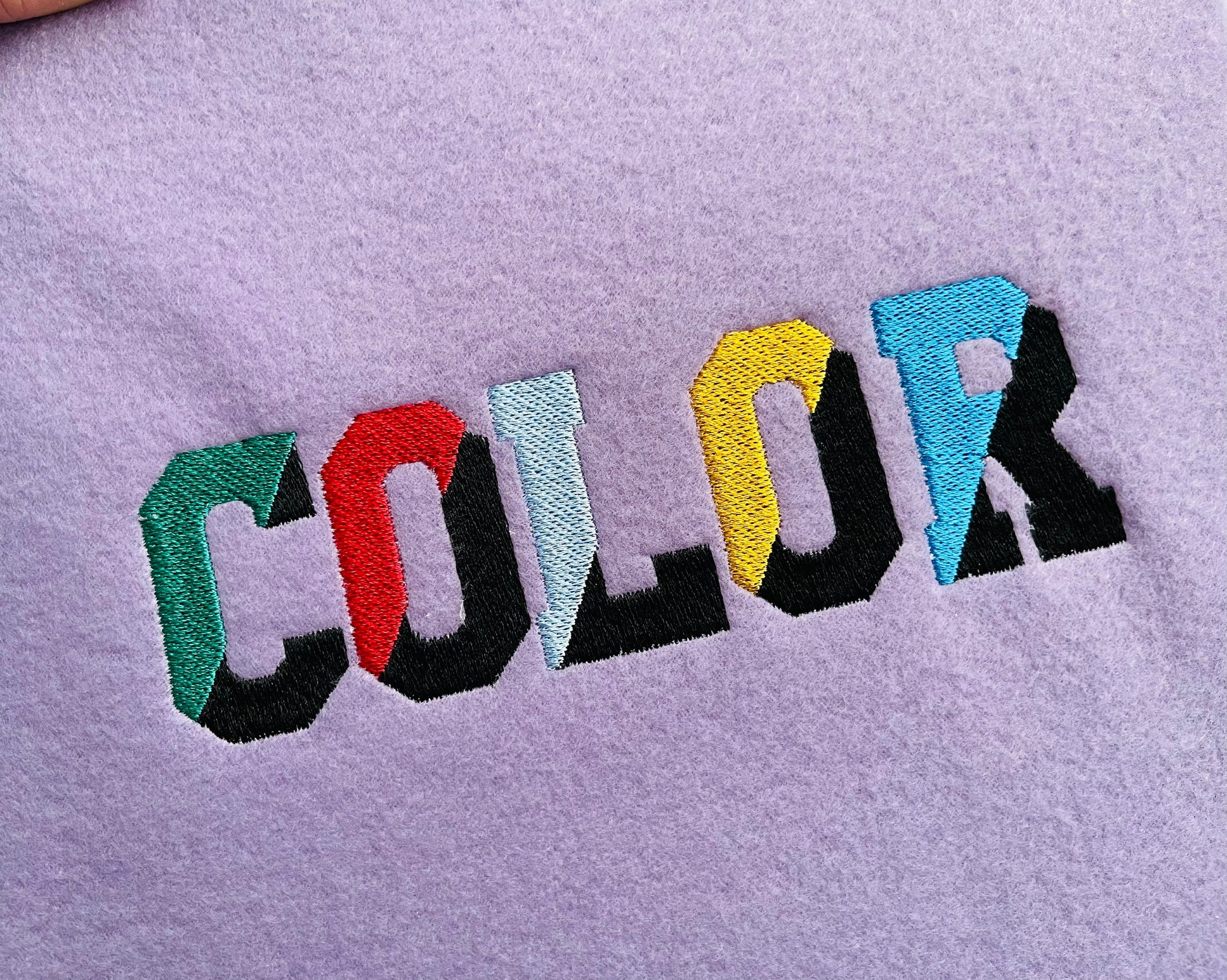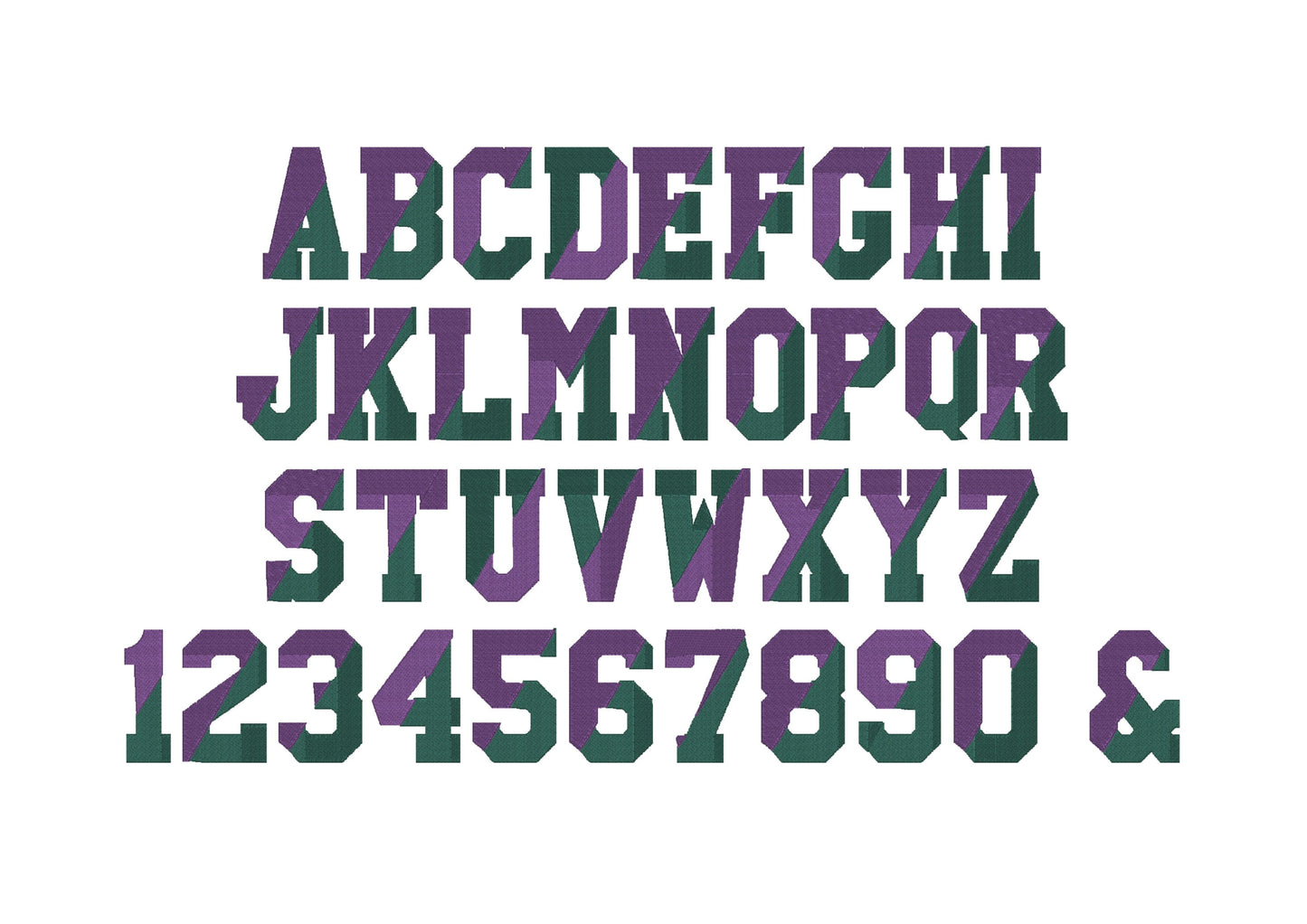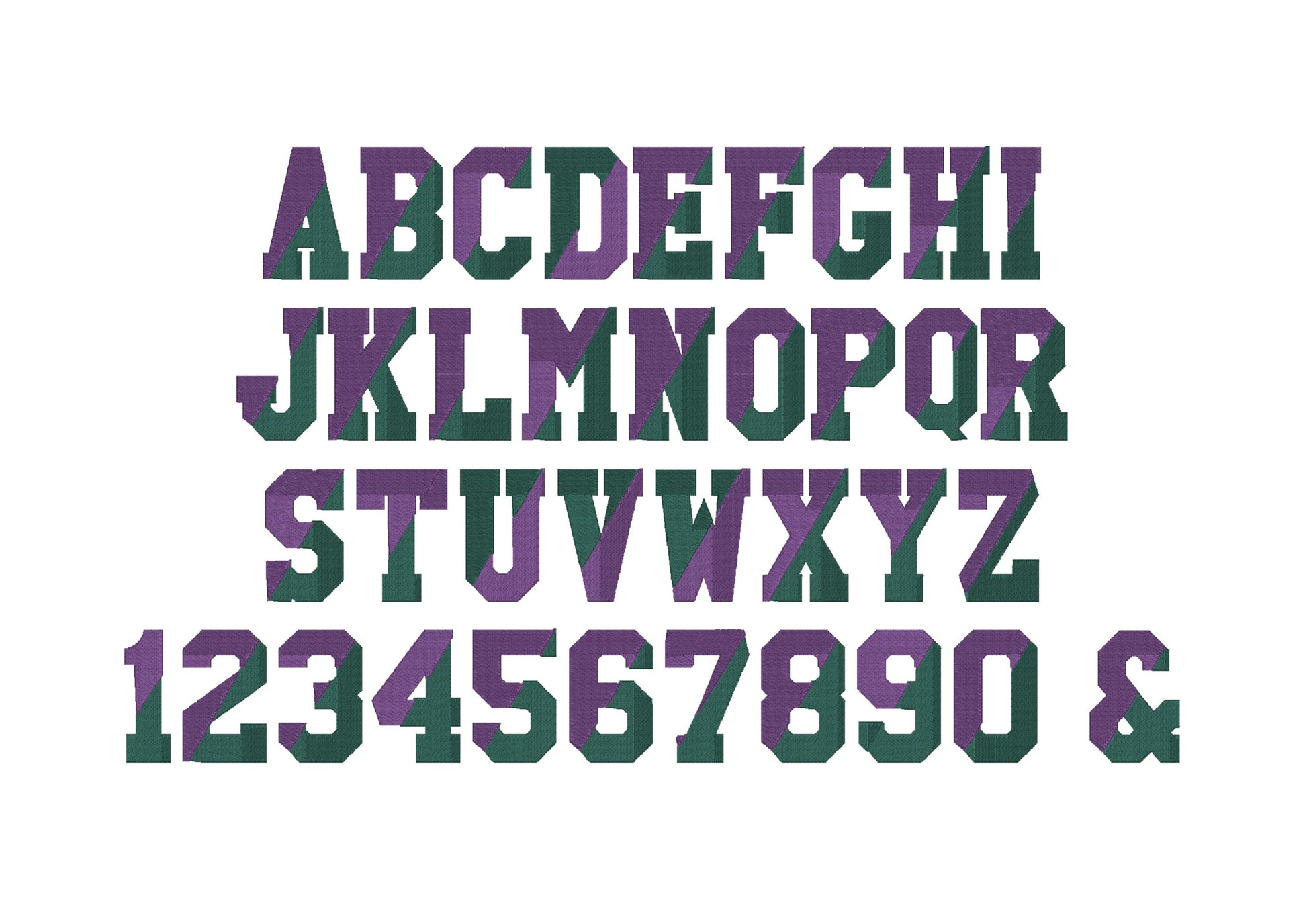
Varsity Collegiate Diagonal Split Fill Stitch Font
Included: Uppercase A-Z, Numbers 0-9, Punctuation
A varsity collegiate font split diagonally in two fill stitch colors, for kids' names and monograms on shirts and bags.
Uppercase A to Z, numbers 0 to 9 and an ampersand in four sizes: 1.2, 2, 2.4 and 2.8 inches.
• Diagonal split varsity font
• Uppercase A-Z, numbers 0-9, &